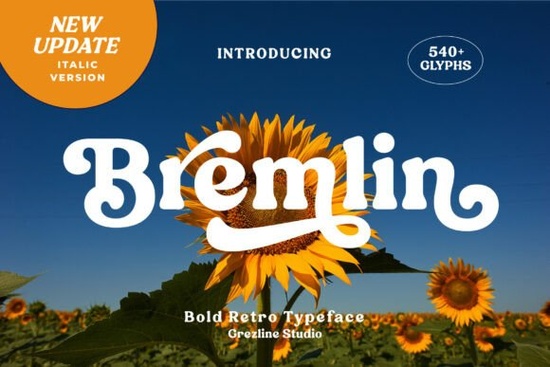
If you've been looking for a retro serif typeface that feels both nostalgic and versatile, Bremlin Italic Font is worth a close look. It's the italic companion to the original Bremlin typeface one of the best-selling retro fonts available today. The italic version was designed to match the original's vintage charm while giving you more room to play with layout, emphasis, and visual hierarchy in your designs.
With over 540 glyphs included, this font pack offers a lot of flexibility for anyone working on branding, packaging, logos, posters, or social media graphics. Let's break down what makes it useful and who it's best suited for.
What Makes Bremlin Italic Different from the Original?
The original Bremlin typeface has a bold, retro serif style that works well for headlines and display text. The italic version takes that same foundation and adds a slight forward lean and refined letterforms that feel more expressive. It's not just a slanted copy of the original the curves and details were adjusted to look intentional and polished on their own.
This means you can use both styles together in a single project. For example, the Bremlin Italic works nicely for subtitles, taglines, or accent text paired with the upright version for main headings. That kind of pairing is common in vintage-inspired branding, and having both styles from the same typeface family keeps everything visually consistent.
Who Is This Font Best For?
Because the Bremlin Italic includes 540+ glyphs, you also get access to alternates, ligatures, and special characters that give your typography more depth. That matters when you want a design to look handcrafted rather than generic.
What sets Bremlin apart is its balance it's bold enough to grab attention but detailed enough to feel refined. The addition of the italic version gives it an edge over fonts that only come in a single style.